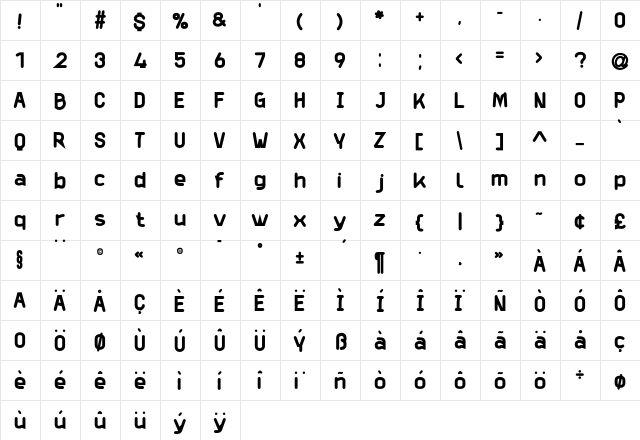
Launderette Spin
Design Context for Launderette Typeface
Launderette is a composed and adaptable typeface that performs quietly and consistently across a wide range of design contexts.
Pro Tip: Pair Launderette with a font of contrasting weight or personality to build a more expressive typographic hierarchy.